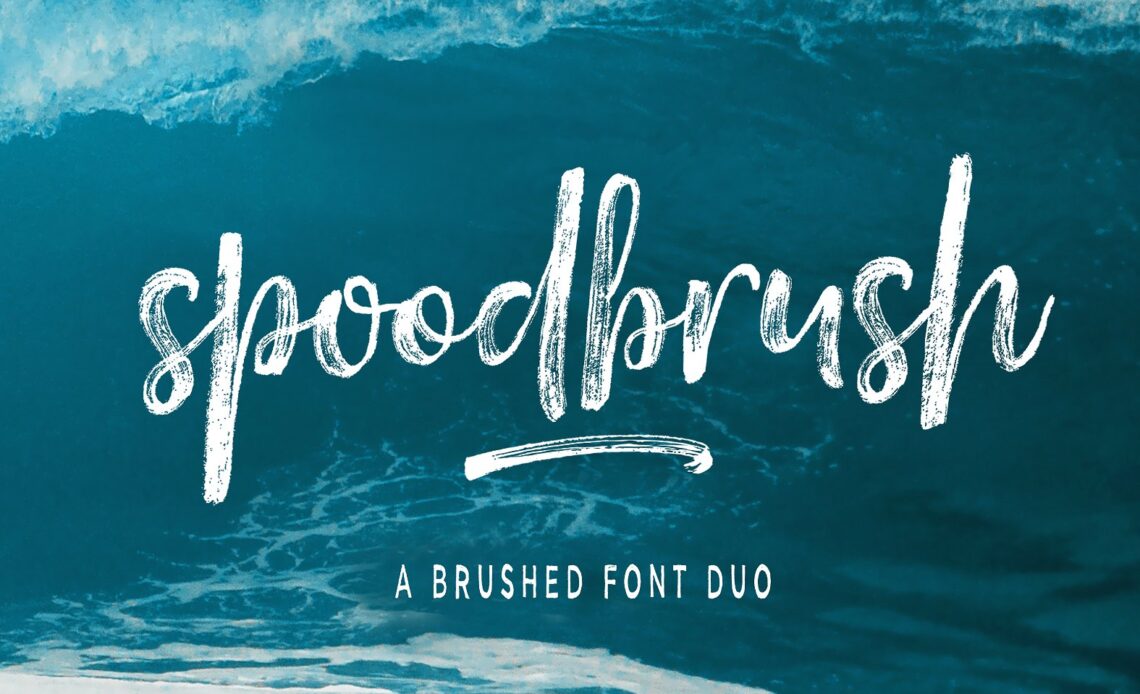
Introducing Spoodbrush - Font Duo, a remarkable script font that embodies the essence of creativity and personalization. Developed by the talented Dhan Studio, this font family is meticulously crafted to elevate your designs and captivate your audience.
With Spoodbrush Font Duo, the possibilities are endless. Its brush stroke script is not only exceptional but also incredibly versatile, allowing you to effortlessly create a wide range of stunning graphics. Whether you're designing logos, invitations, or social media posts, this font duo is your perfect companion.
Imagine the impact of adding a personal touch to your designs. Spoodbrush Font Duo empowers you to infuse your projects with emotion, making them truly unforgettable. Its expressive strokes breathe life into every letter, evoking a sense of passion and authenticity that resonates with your audience.
Why settle for ordinary when you can have extraordinary? Spoodbrush Font Duo allows you to break free from the monotony of generic fonts and stand out from the crowd. Its unique style and exquisite details will instantly grab attention and leave a lasting impression.
Expand your font collection with Spoodbrush Font Duo and unlock a world of artistic possibilities. Whether you're a professional designer or a passionate hobbyist, this font duo will be your secret weapon for creating visually stunning and impactful designs.
Revolutionize your designs today with Spoodbrush Font Duo – the ultimate choice for those who crave uniqueness, versatility, and a touch of artistic brilliance.